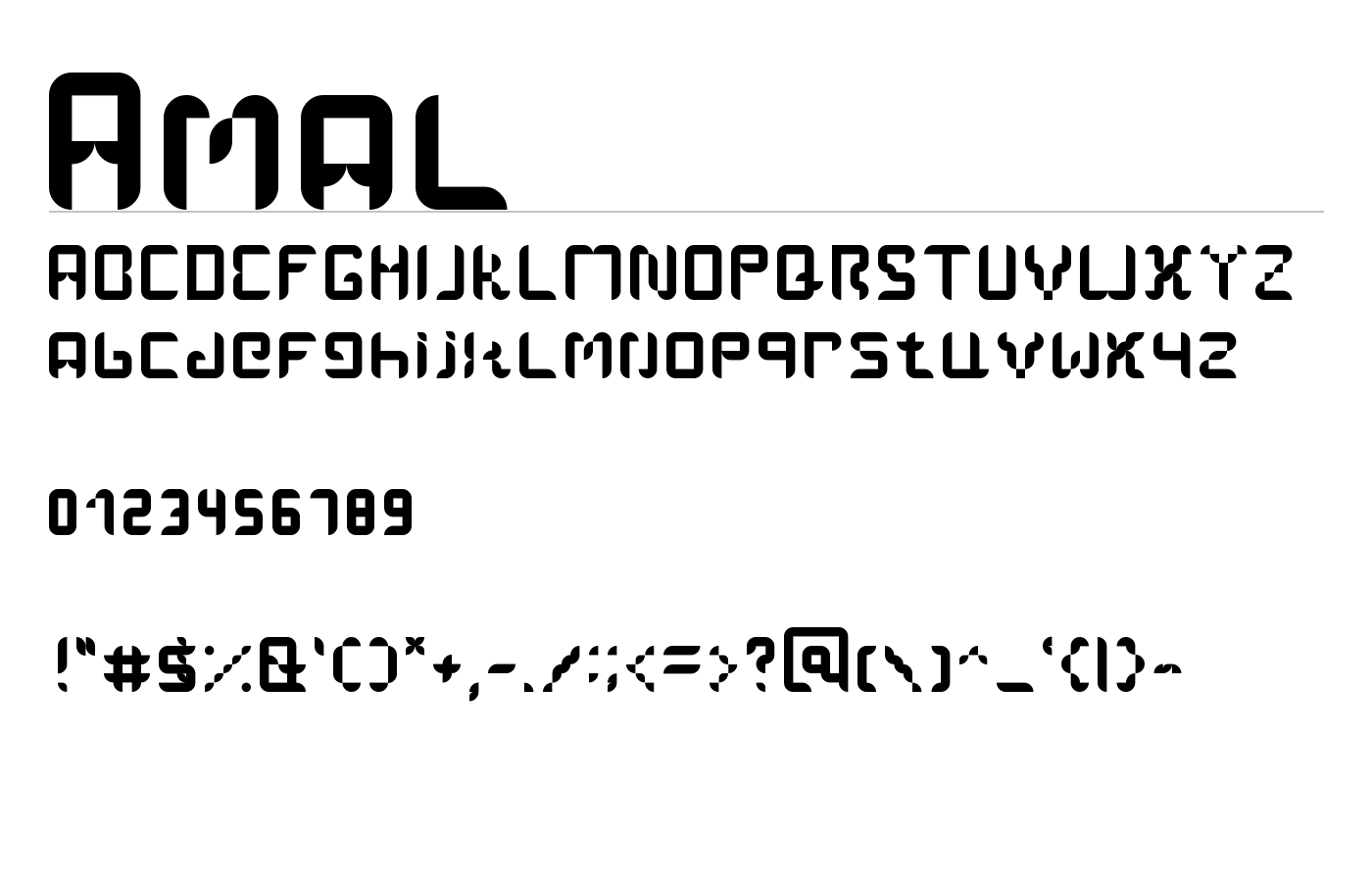
Amal is a unique sans serif font with a futuristic and geometric style characterized by its bold weight, condensed width, and high x-height, making it highly legible and impactful. Its distinct letterforms feature sharp corners and unusual gaps that create a modern, tech-inspired vibe, perfect for cutting-edge branding, digital interfaces, and eye-catching headlines. This font works well in creative projects seeking a bold, innovative feel that stands out with a playful yet serious tone.
About Amal Font